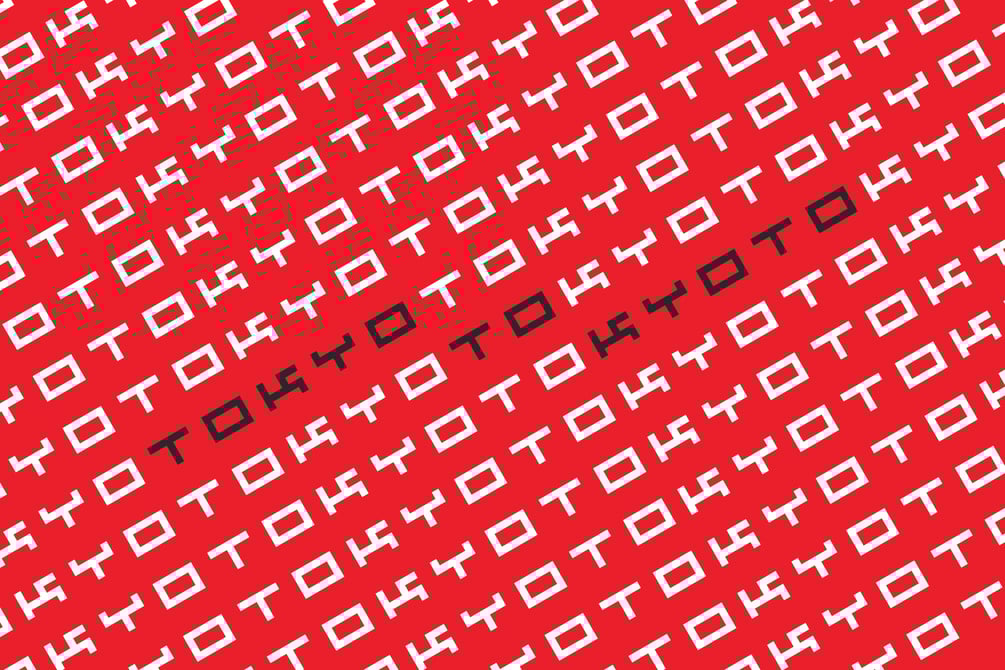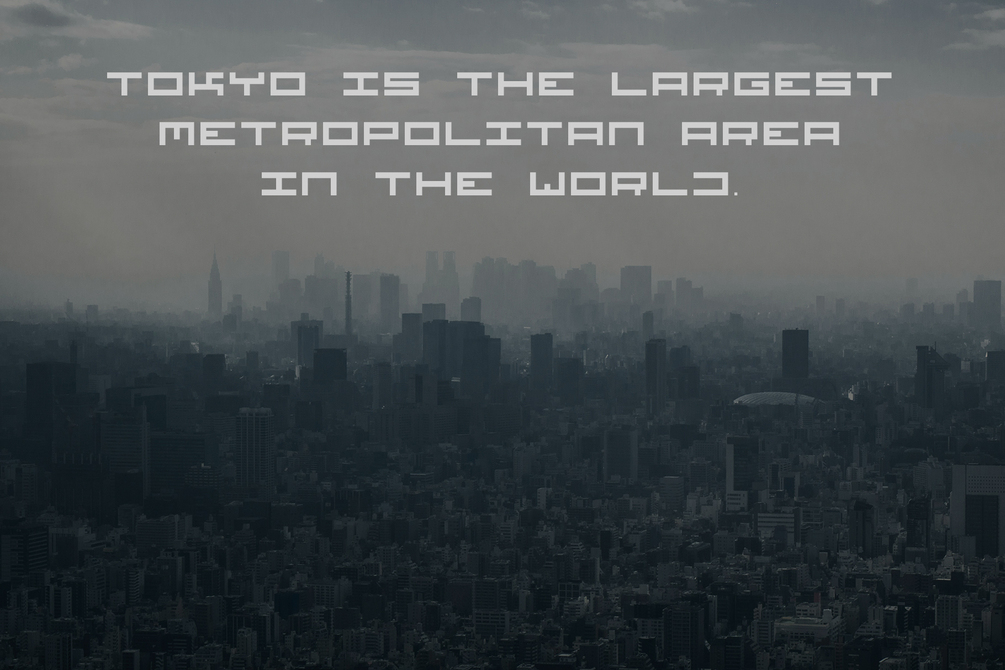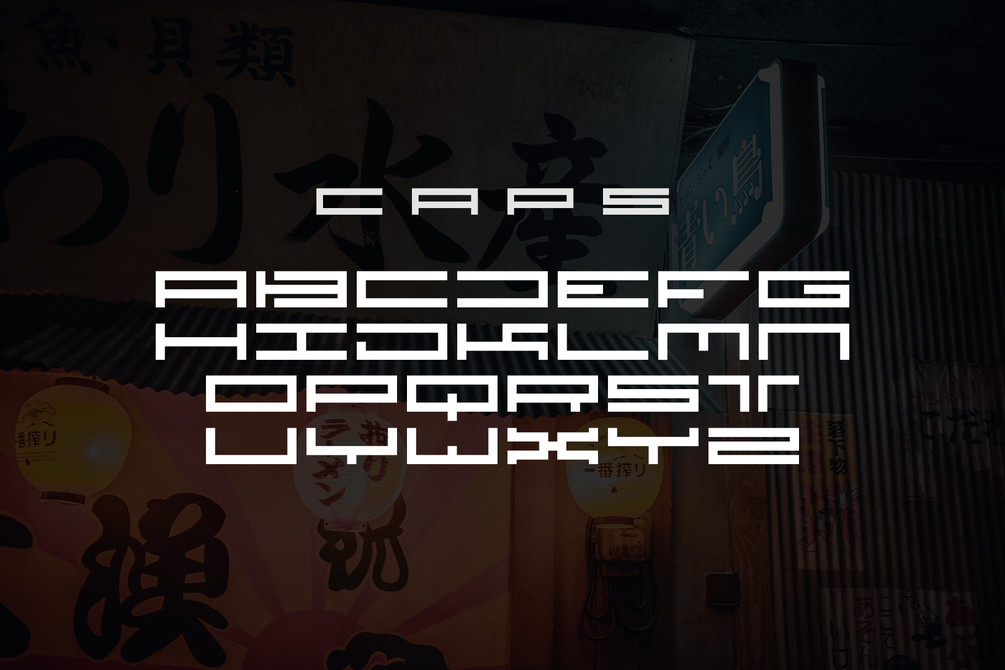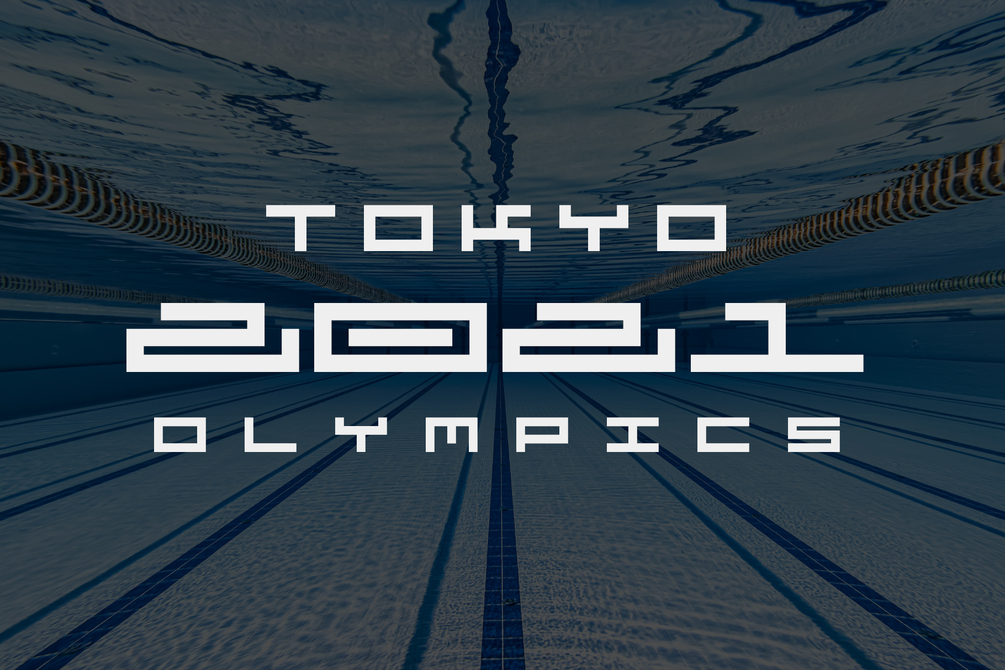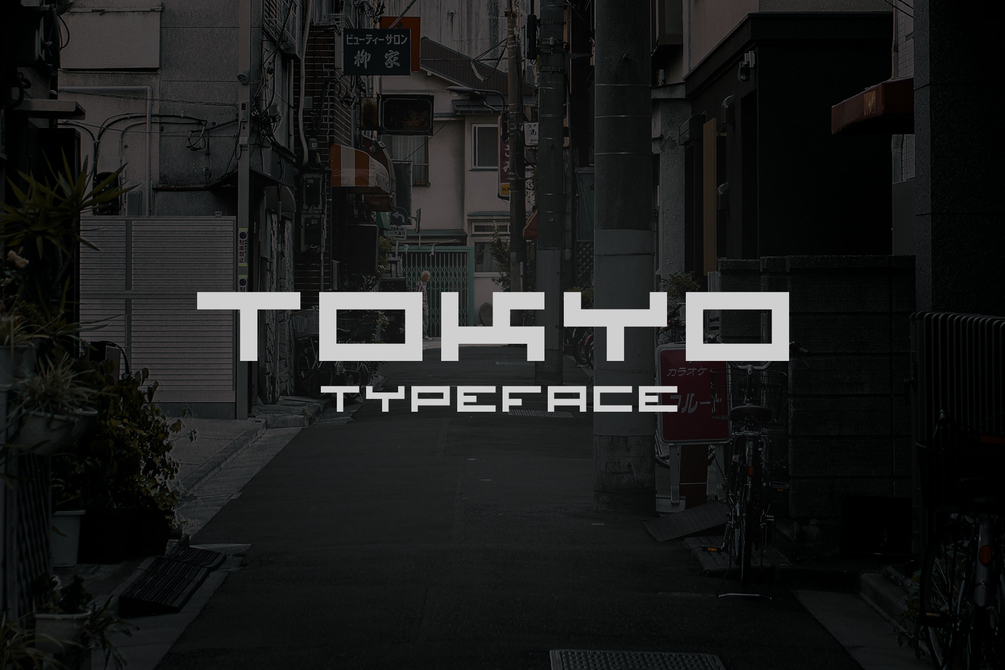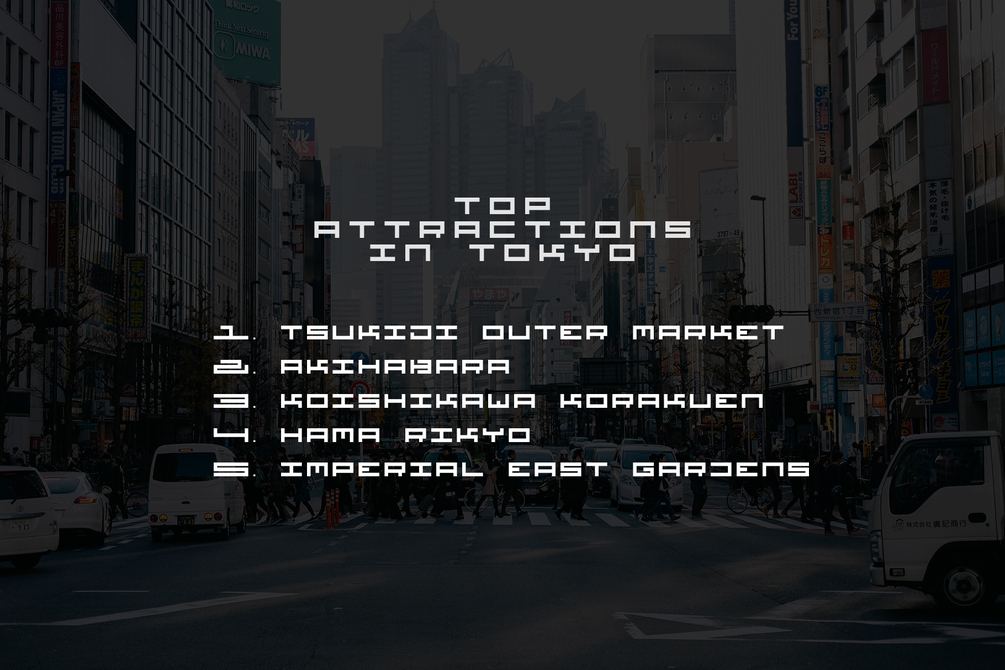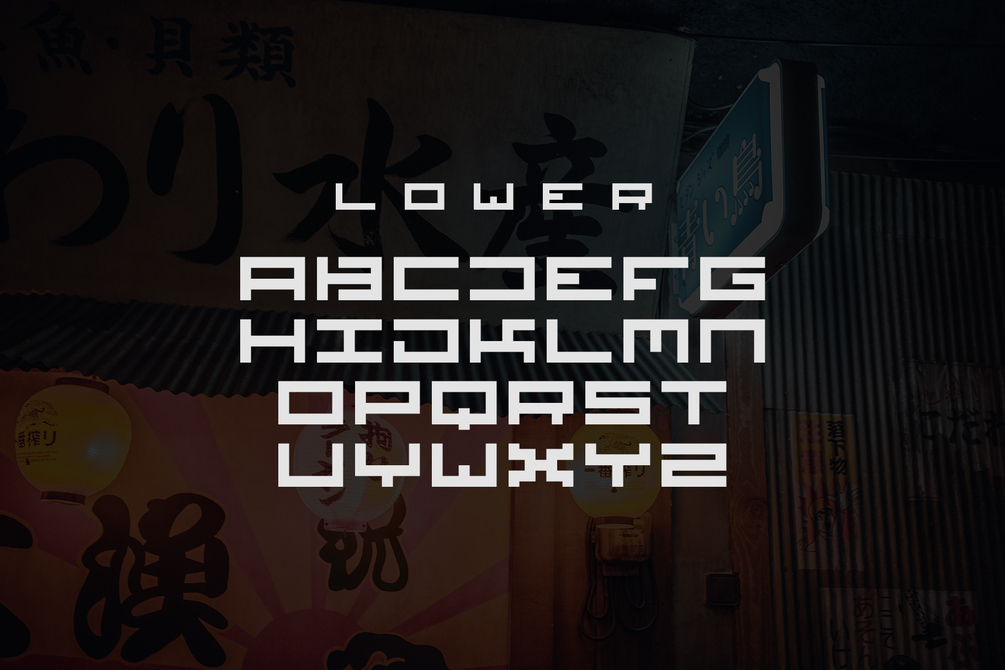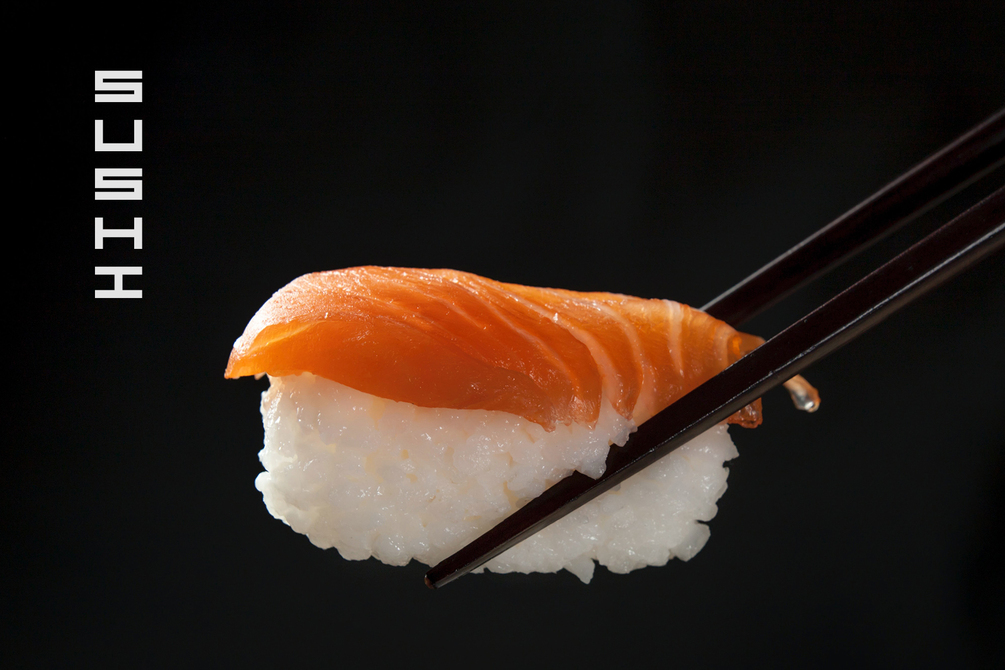
Tokyo Typeface
Tokyo is an ornamental japonism typeface. This font allows you to write and read in Latin letters with a Japanese appearance. This typeface was inspired by traditional Japanese Inkan-Seals, which have been around for more than 1500 years. Inkan-Seals are used instead of signatures in personal documents, office paperwork, contracts, art, or any item requiring acknowledgement or authorship.
The typeface contains lower and upper case letters. The upper case is wider than the lower case, however they still blend well together. If you love eastern typography but can't write it, now you can! And it looks just as beautiful as the original. I hope you'll enjoy this font and find it useful for your future projects.